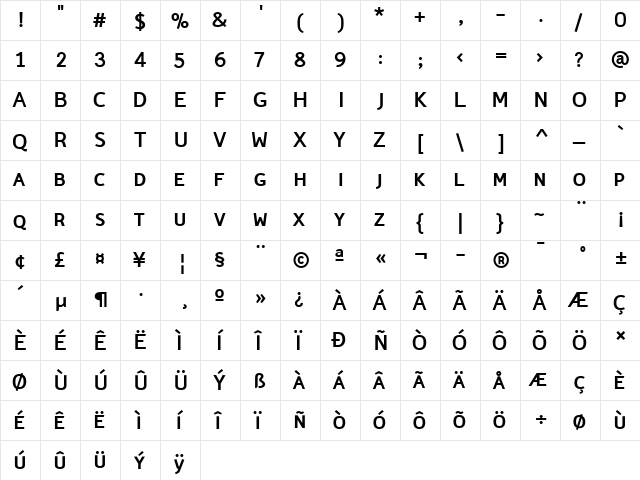
Domestos98b Bold
Design Context for Domestos98b Typeface
Domestos98b is a composed and adaptable typeface that performs quietly and consistently across a wide range of design contexts. The heavy weight commands attention and anchors typographic hierarchies.